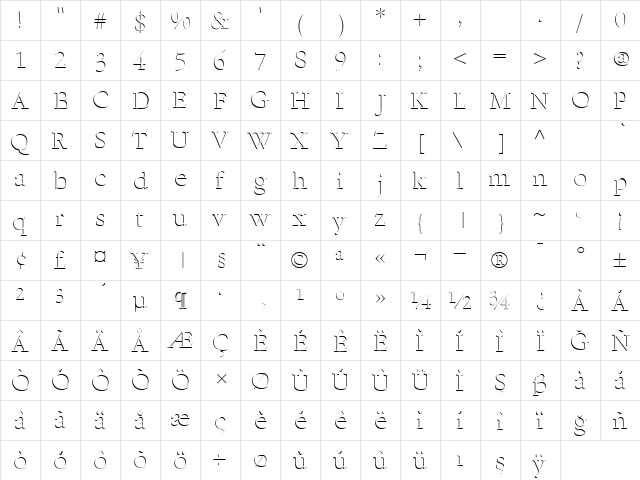
TR Emboss Normal
Design Context for TR Emboss Typeface
TR Emboss takes a measured approach to typography — its balanced proportions and neutral character make it a reliable workhorse for both digital and print work.